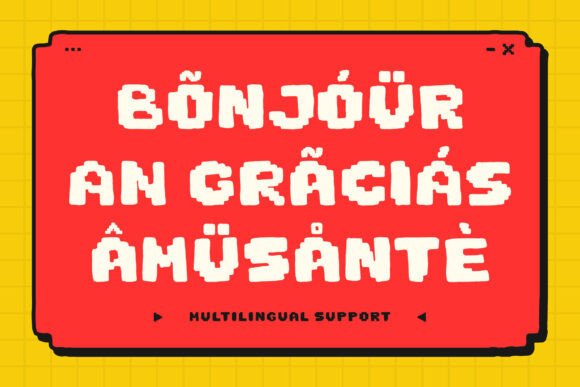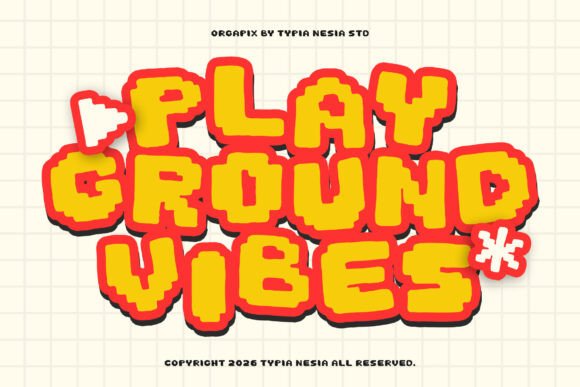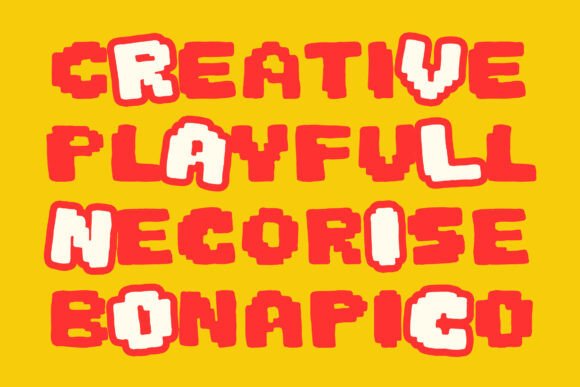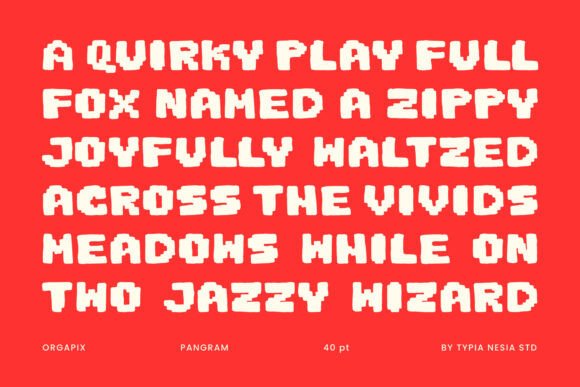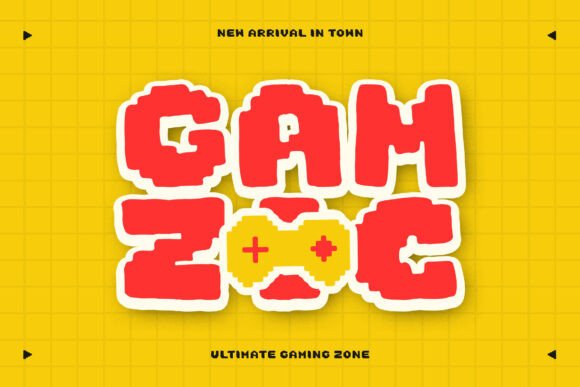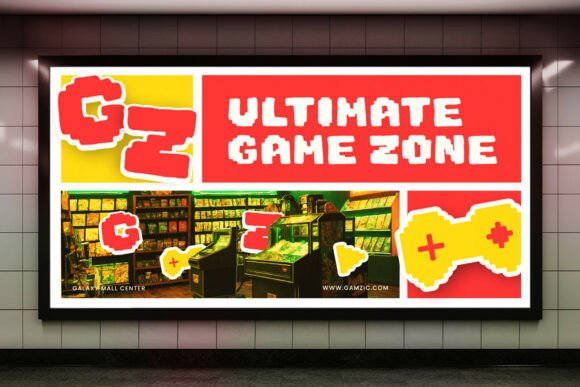
Introduction to Orgapix Font
Orgapix – Organic Imperfect Doodle Pixel Font – Playful Retro Game Cartoon Logo Font Orgapix is a playful pixelated display font that blends retro arcade vibes with a fun, hand-drawn personality.
Inspired by classic game graphics, cartoon visuals, and organic pixel shapes, Orgapix features bold, imperfect, doodle-style letterforms that feel lively and expressive With its pixelated and slightly rough construction, Orgapix is perfect for game design, kids’ projects, arcade themes, logos, playful branding, posters, creative packaging, and any project that needs a touch of organic, imperfect pixel style.
Key Features of Orgapix Font